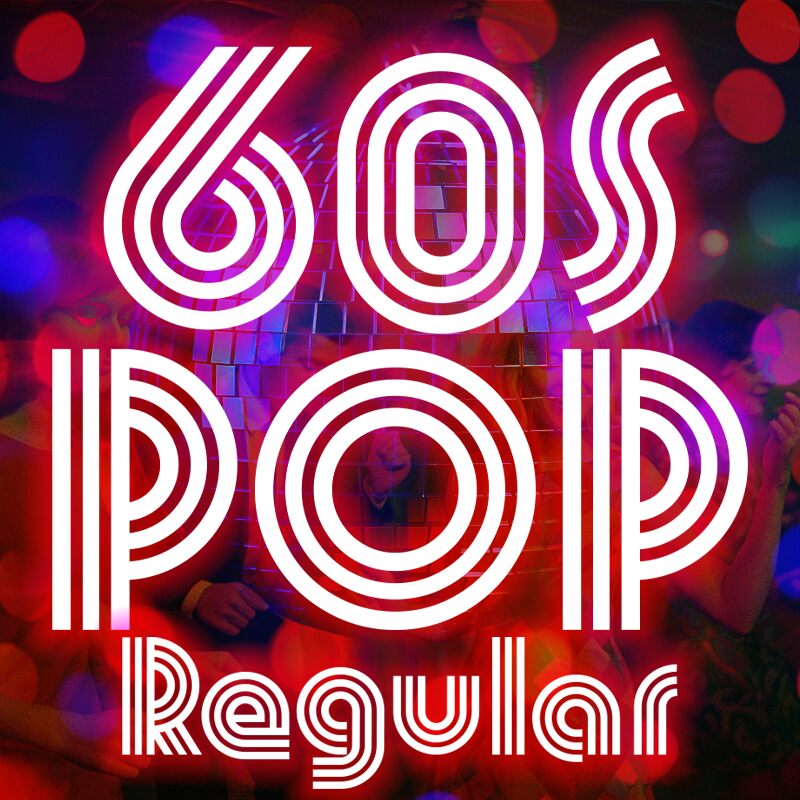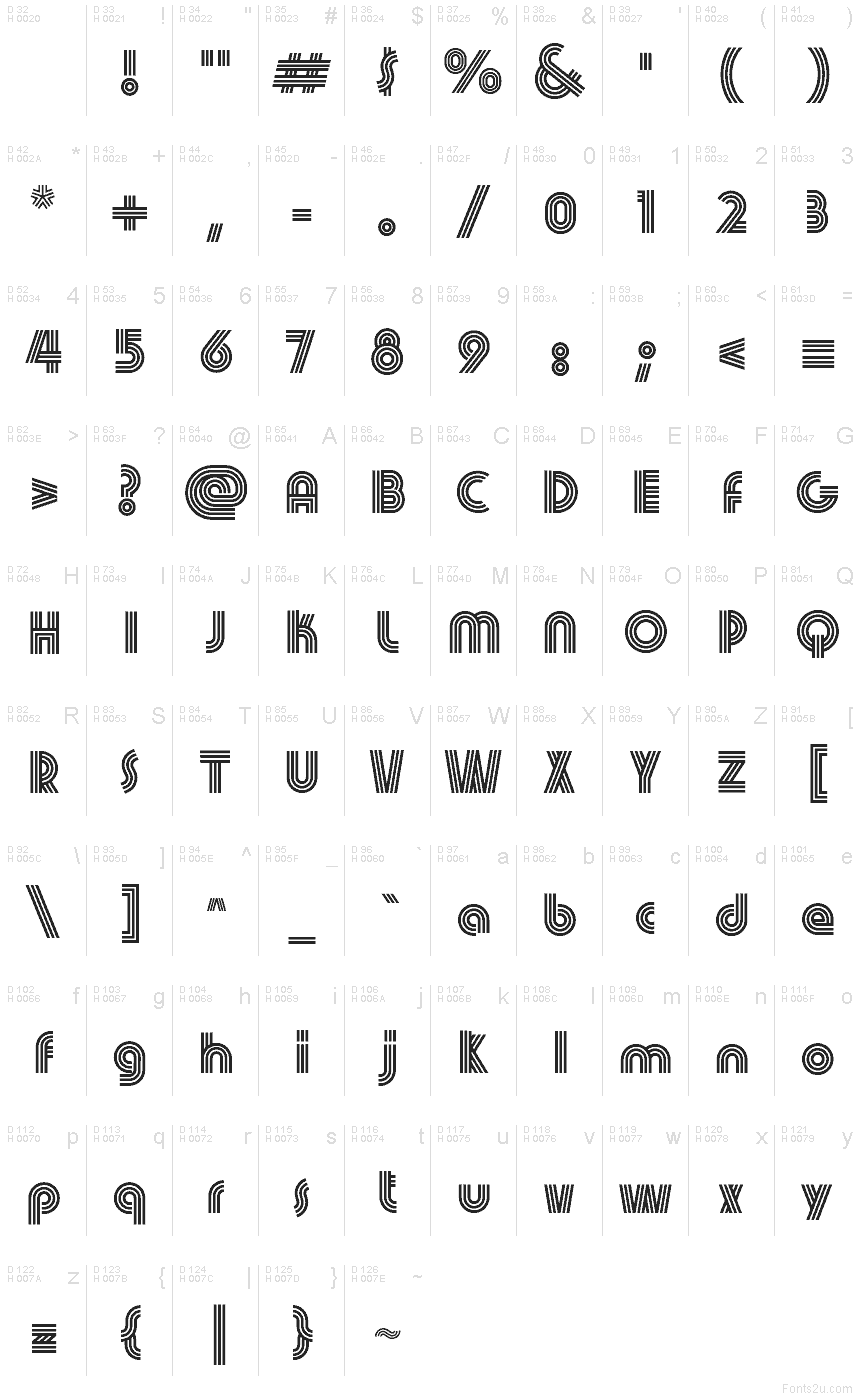
60s Pop Regular
60s Pop font by Galdino Otten Fonts is a free groovy display font built around hypnotic concentric stripes. The stacked lines carve rounded, bubbly shapes with a pulsing rhythm, so letters feel like they’re vibrating off a vintage poster. Thick curves, tight bends, and repeat bands create instant motion and a upbeat, candy-coated vibe without needing color or effects.
Using 60s Pop, headlines jump in applications like festival posters, record sleeves, event invites, retro packaging, social banners, and pop-up shop signage. Keep it big and give it a notch of tracking to let the rings breathe; pair this free font with a plain geometric sans for body copy so the stripes stay the star.